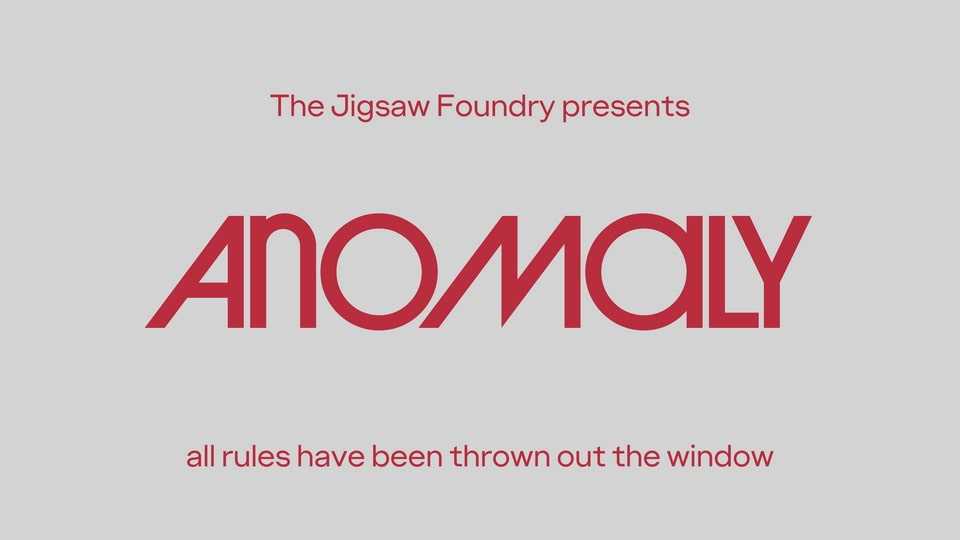
Download TJF Anomaly font, a display typeface, an attempt to rejuvenate the true spirit of the late Herb Lubalin. Complete with a couple of stylistic alternates and extra ligatures, if you want to set a heading like it’s 1974.